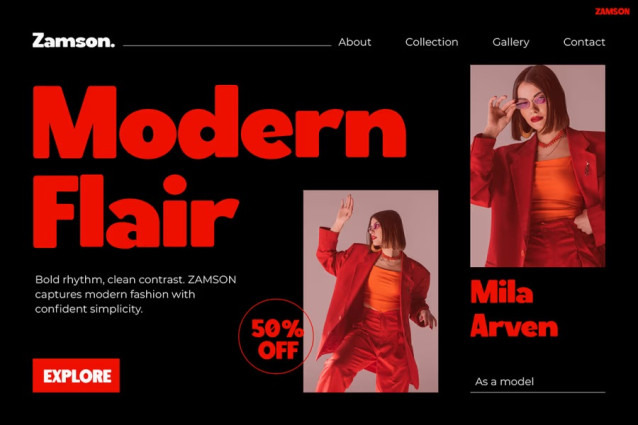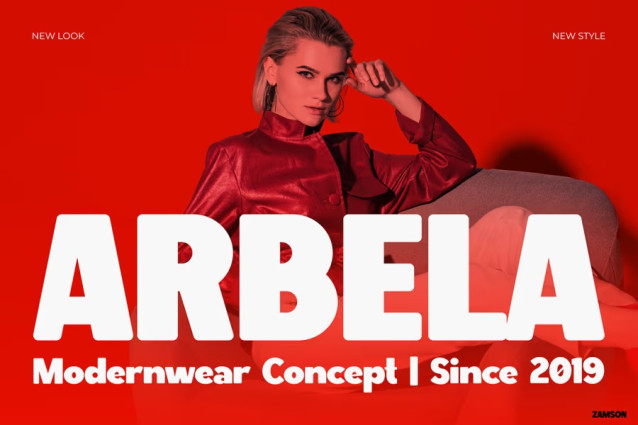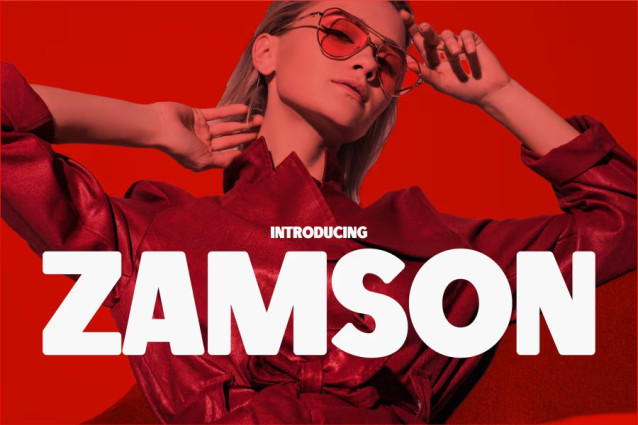
Zamson Font
Zamson Font is not just a typeface — it’s a statement of style and strength. This modern display font blends bold structure with contemporary aesthetics, making every word stand out with confidence. Moreover, its strong geometric shapes and smooth proportions create a perfect balance between power and elegance. With its wide letterforms and clean edges, ZAMSON brings a striking, high-end editorial feel that instantly enhances any design.
Each detail has been designed with intent, ensuring that your message is always clear, stylish, and impactful. In addition, the bold rhythm of its letters delivers a modern tone ideal for today’s creative world. Whether you’re working on a campaign, social post, or product packaging, this font ensures your visuals never go unnoticed.
ZAMSON is an excellent choice for fashion brands, lifestyle influencers, creative agencies, and social media designers who seek a refined yet commanding look. Furthermore, it fits seamlessly into editorial layouts, product packaging, posters, and Instagram promotions, where precision and visual confidence are key.
If your design demands clarity with personality, ZAMSON provides the answer. Its balance between minimalism and expressiveness ensures that every composition feels both modern and professional. Therefore, it’s perfect for brands that wish to communicate creativity, passion, and authority in every visual detail.
Besides being visually strong, ZAMSON is also versatile. It adapts beautifully to digital and print projects alike — from bold headlines to trendy social media graphics. Additionally, its readability makes it suitable for both large statements and stylish small text compositions.
When you use Instagram Font ZAMSON, you’re not just designing — you’re creating presence. It gives your words shape, intent, and attitude. Moreover, its modern edge and editorial flair help your designs look instantly premium and professional.
So, if you’re ready to elevate your brand identity, choose ZAMSON. It’s not just another modern font — it’s a design tool that empowers your creativity and makes your message unforgettable.